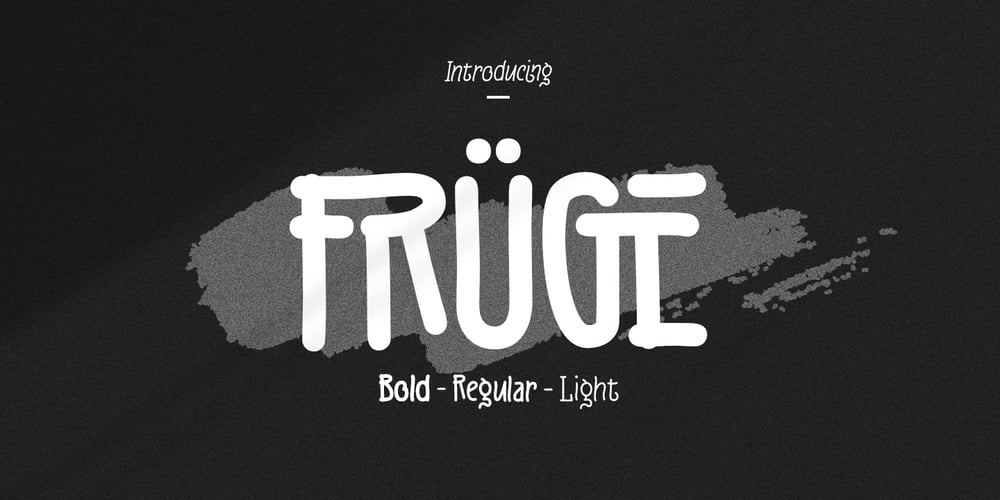
Fruge
Fruge font
Fruge Font Family was designed by Jarnawi Saja and published by Grontype. Fruge contains 6 styles and family package options. Fruge is a fresh, calm, and charming monoline handwriting font family. This font is a round edge style and equipped with extra ligatures and alternatives. Fruge is Perfect for editorial design, branding, packaging, cards, posters, stickers, quotes, social media posts and more!Features: Regular & Italics Basic Latin Glyphs Uppercase and Lowercase Letters Alternates & Ligatures Numeral and Punctuation Multilingual Support Thankyou for picking up this font, hope you enjoy it.Regard. Grontype